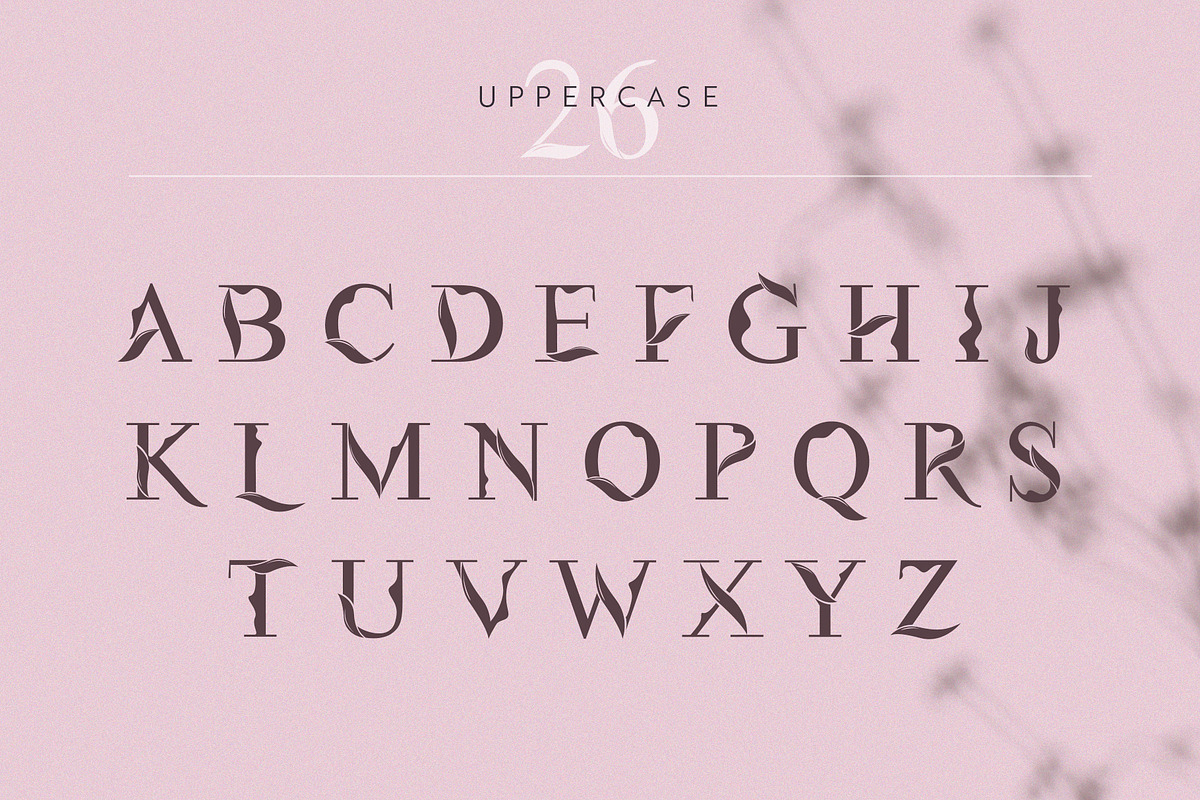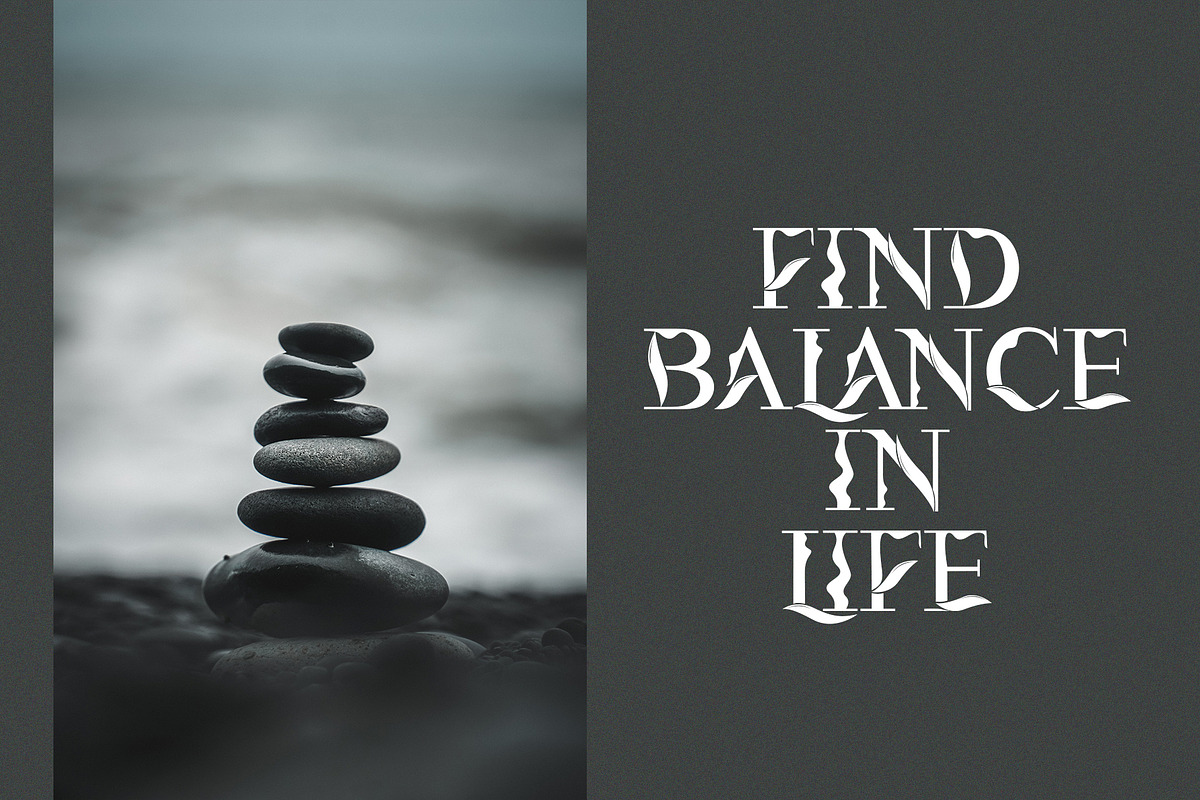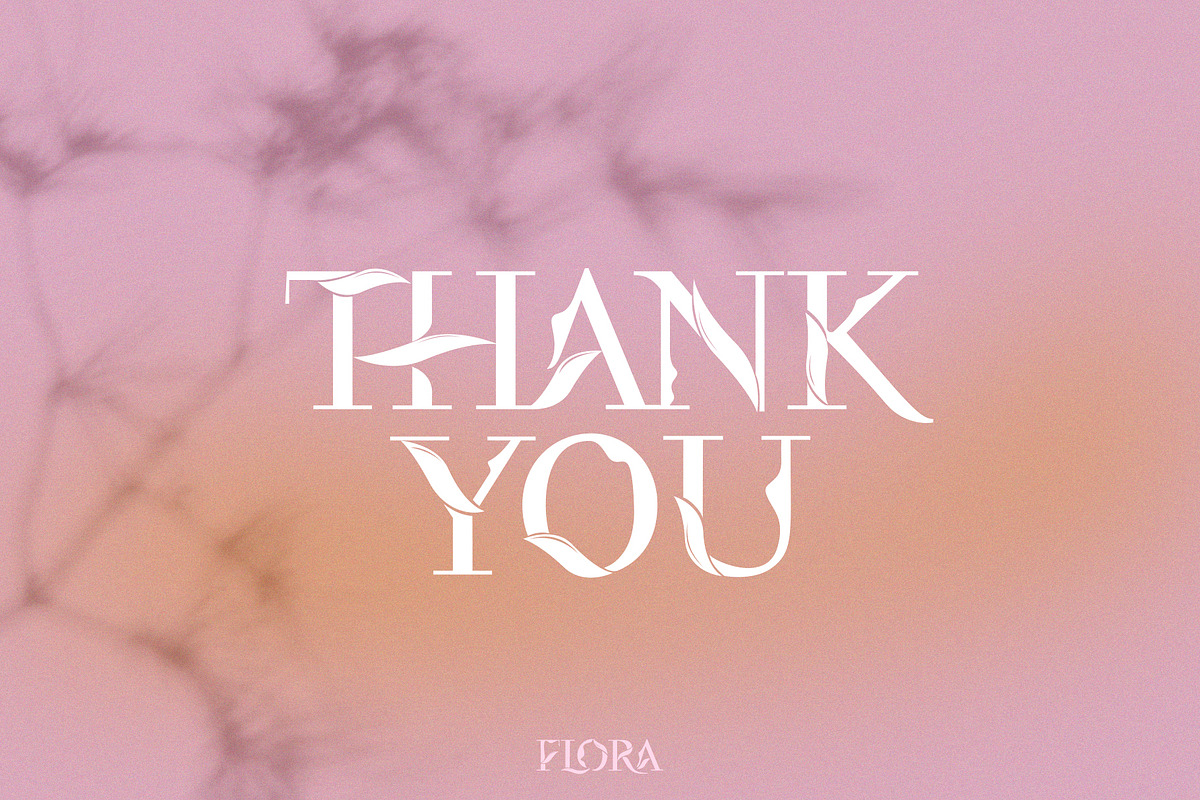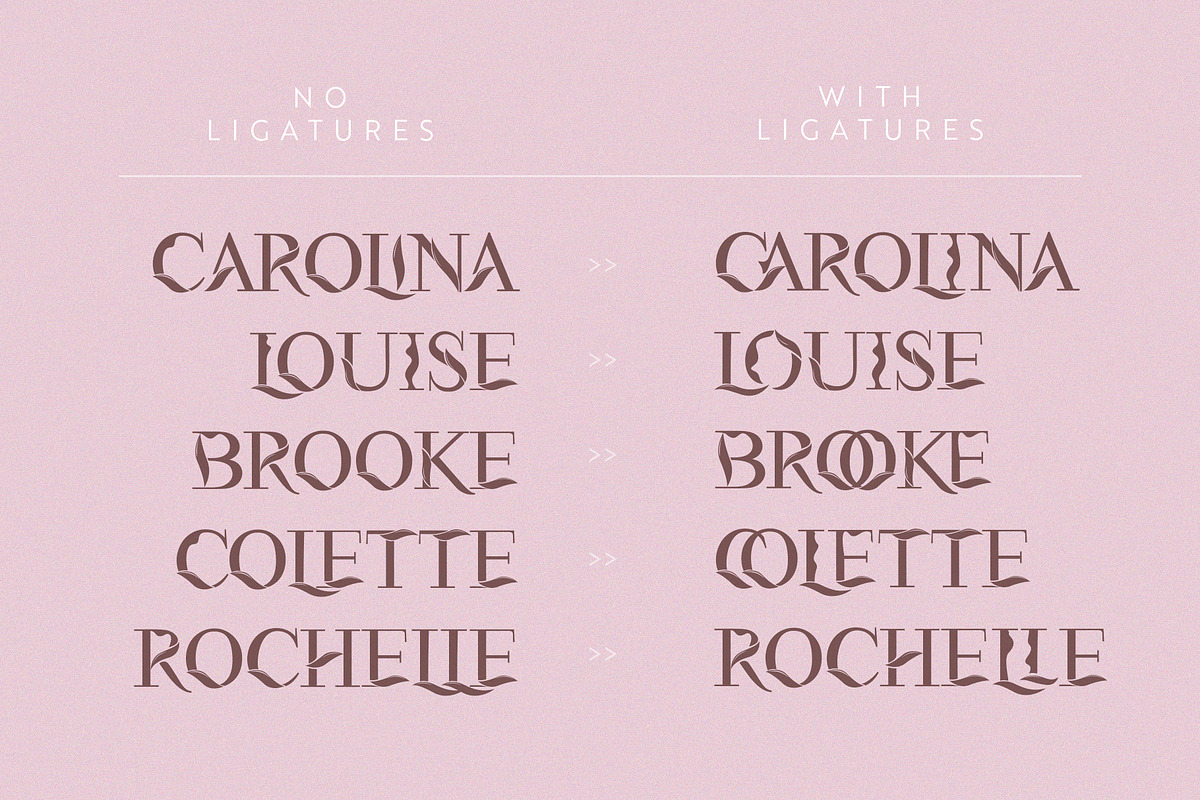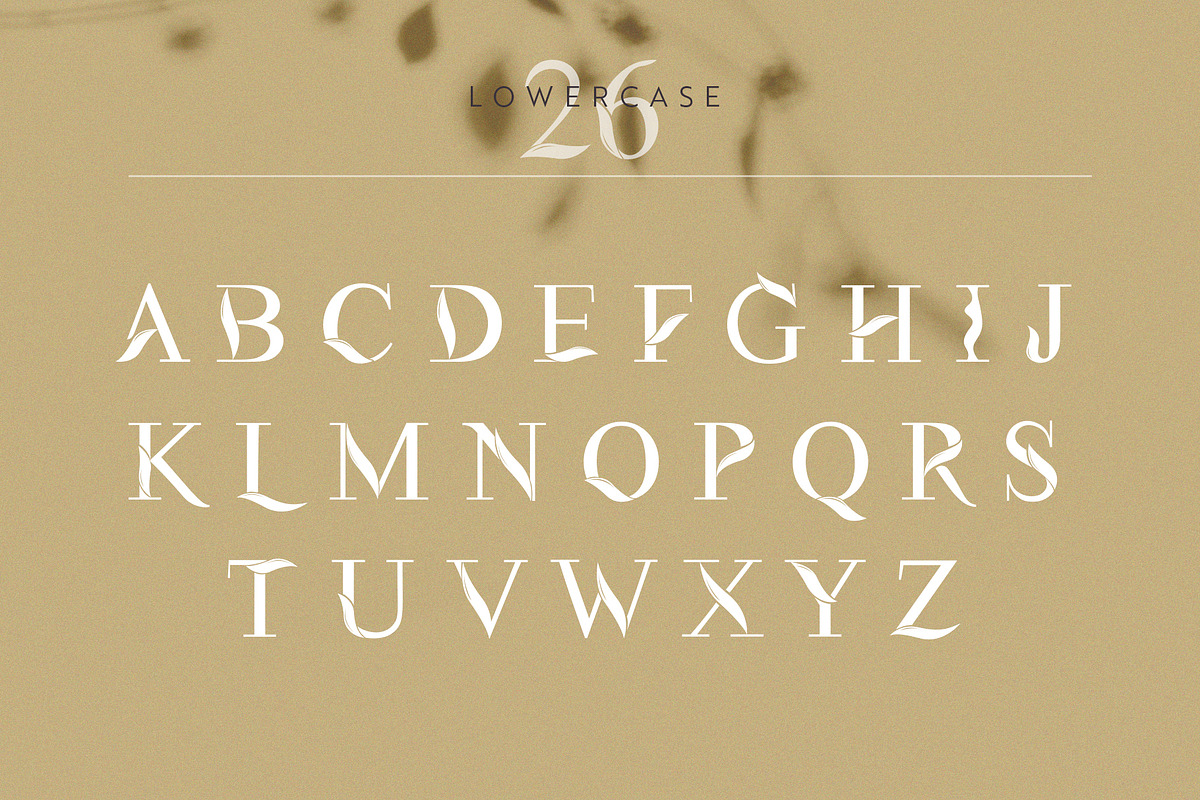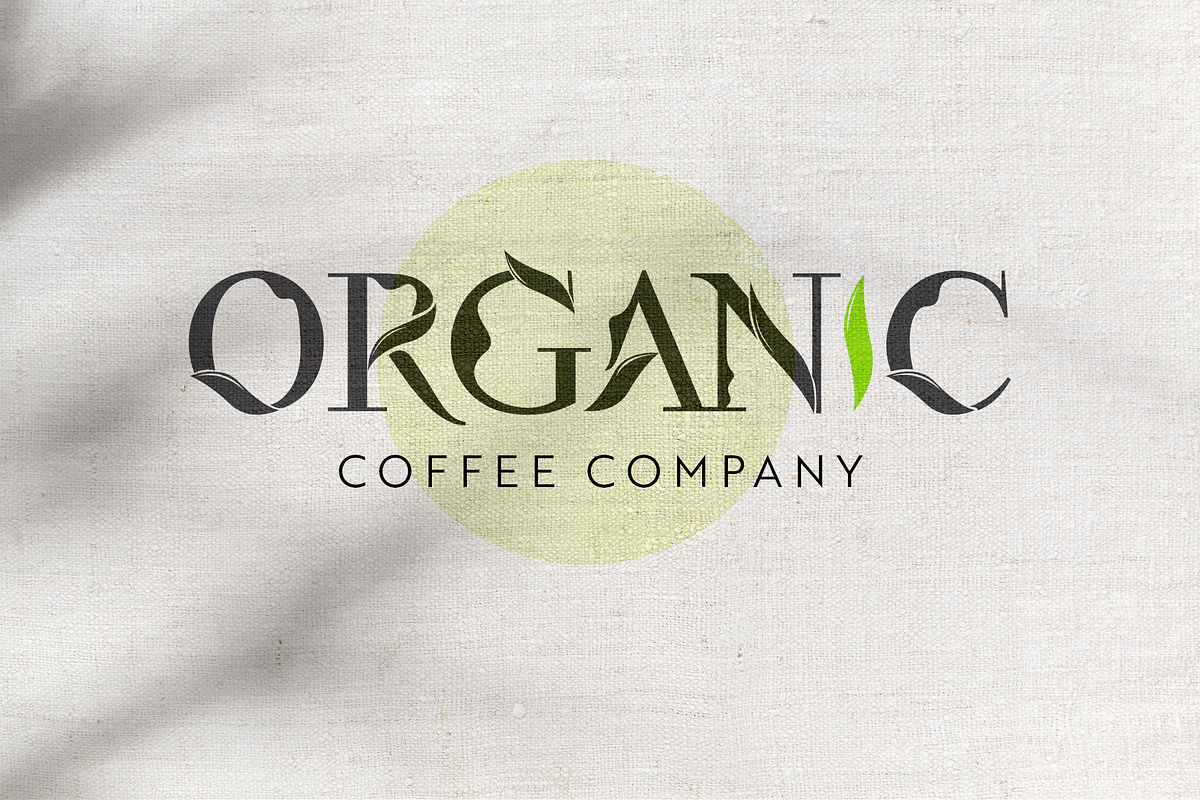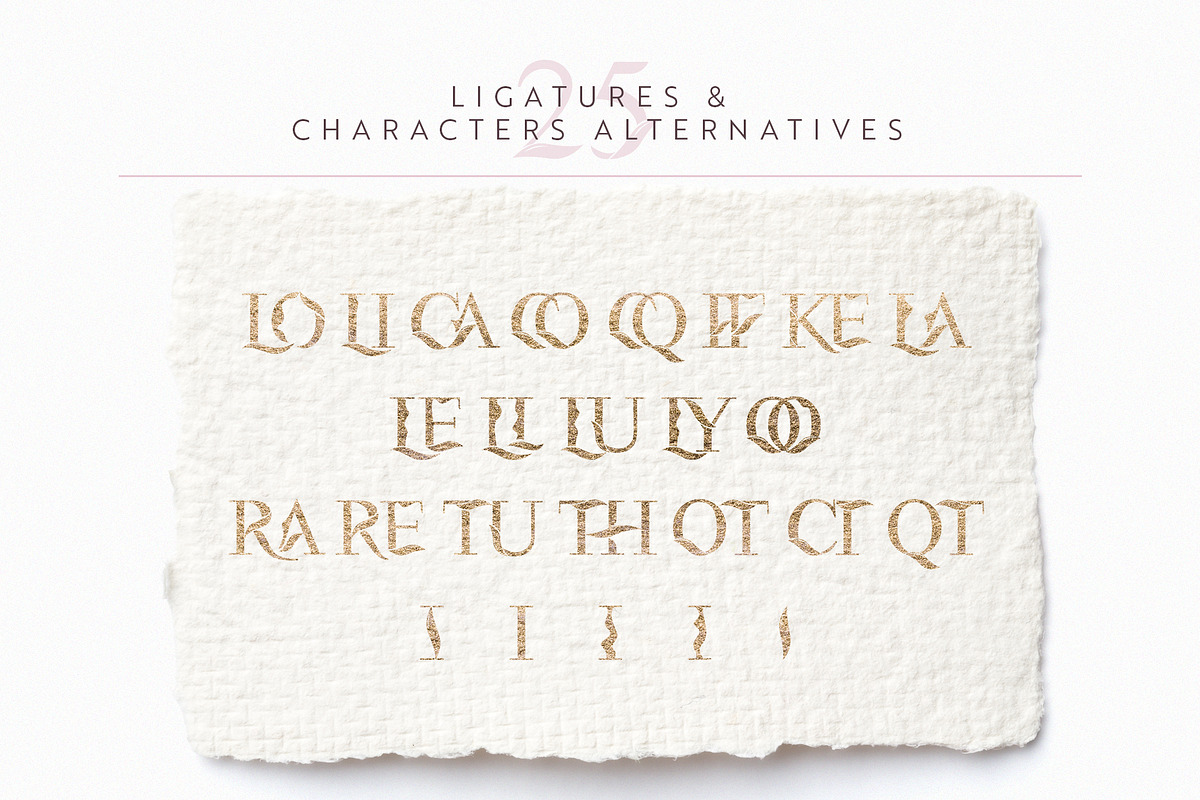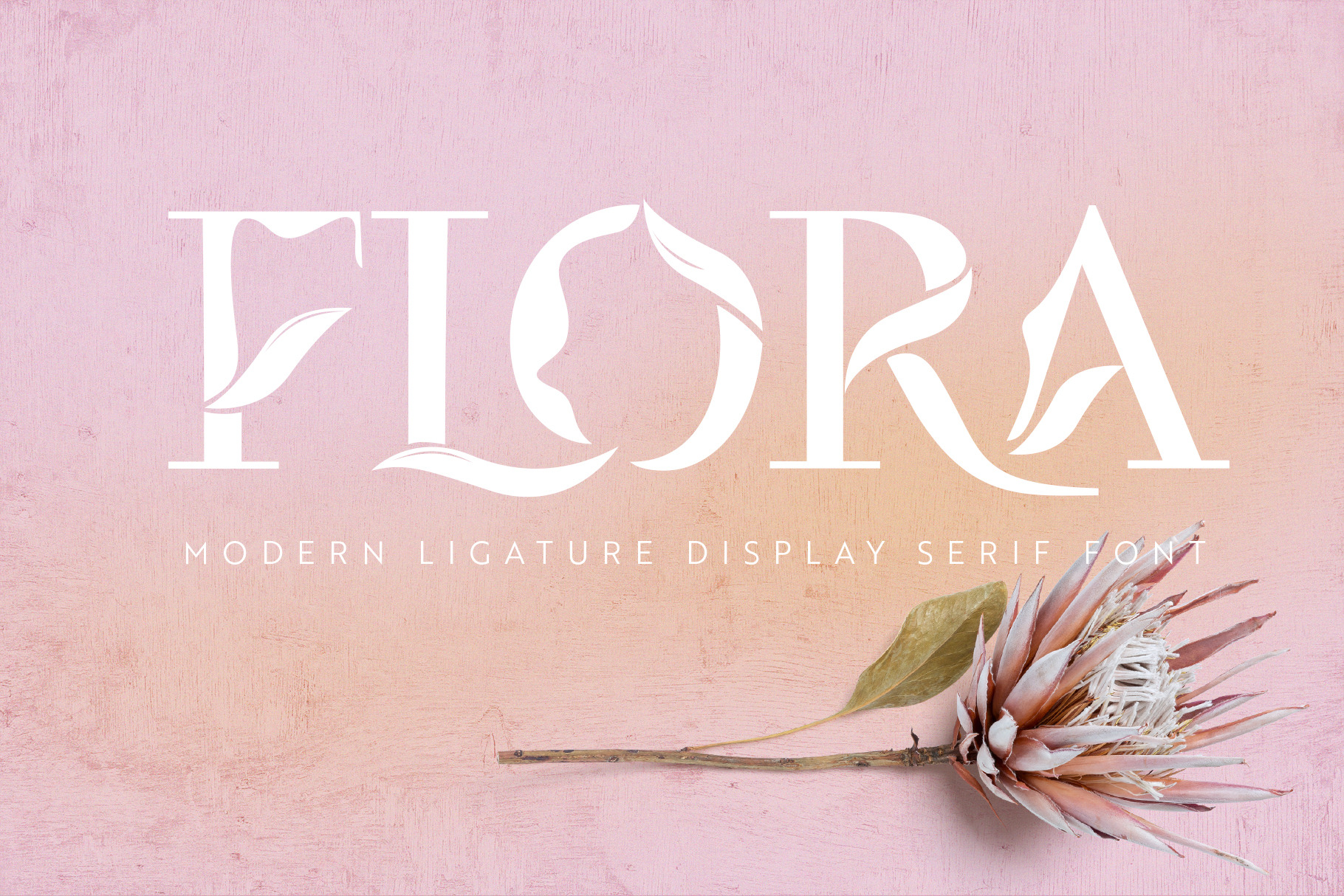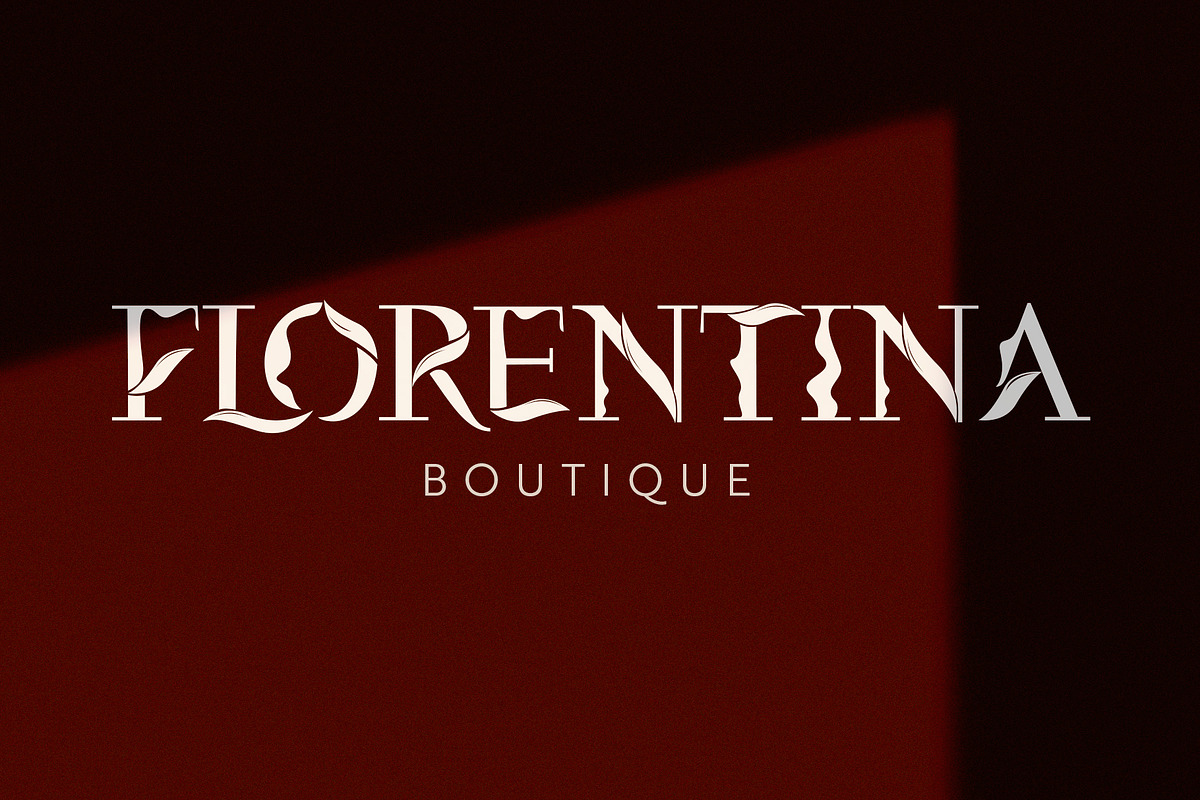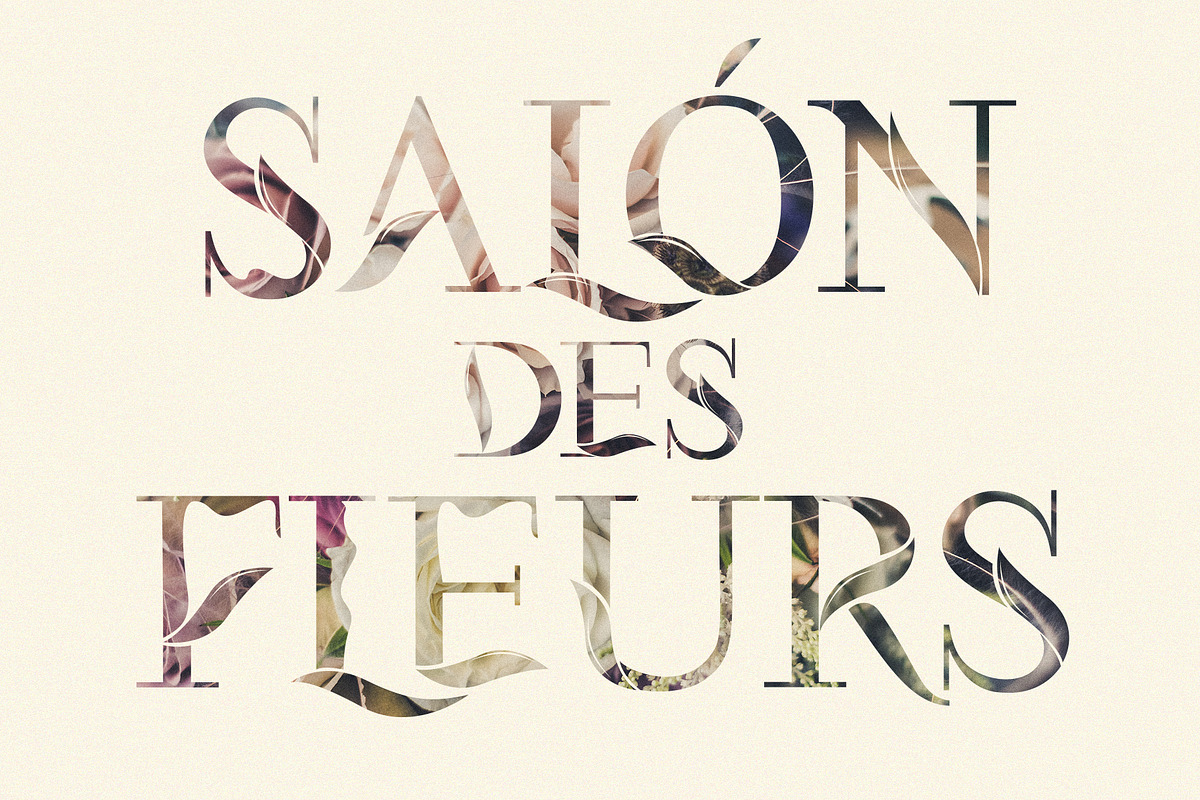
Flora | Modern Display Font
Flora - new modern ligature display serif font with floral elements. Inspired by classical serif font and elegance nature lines and forms. Includes floral elements in each characters and beautiful ligatures. This font perfect for all kind of design: BRANDING and LOGOS, social media and visual content, web and UI design, posters and art collage, WEDDING typography.
- Latin Upper Case characters (lowercase - alternates of upper cases);
- Numbers;
- Punctuation;
- Special symbols;
- Character's ligatures;
- Character's alternatives;
- Multilingual Support.